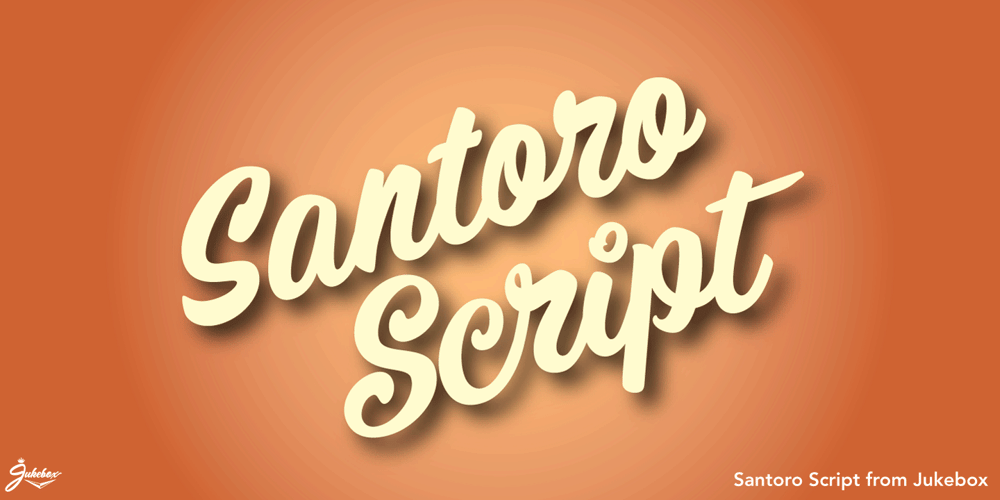
Santoro Script
Santoro Script font
Santoro Script Font Family was designed by Jason Anthony Walcott and published by Jukebox Collection. Santoro Script contains 1 styles and family package options. Santoro Script is a fun, happy script font created in the style of handpainted sign lettering. The first brand-new font added to the Jukebox library since 2011, it displays a jubilant attitude which will add a spontaneous, warm and friendly look to any design. The typeface contains three versions of every letter found under the Swash and Stylistic Alternates OpenType features as well as a few additional letter versions and ligatures under the Titling and Discretionary Ligatures OpenType features. These extra alternates help give the font a hand painted feeling. Jukebox fonts are available in OpenType format and download packages contain both .otf and .ttf versions of the font. They are compatible on both Mac and Windows. All fonts contain basic OpenType features as well as support for Latin-based and most Eastern European languages.